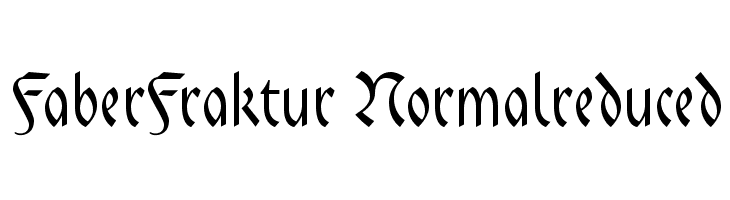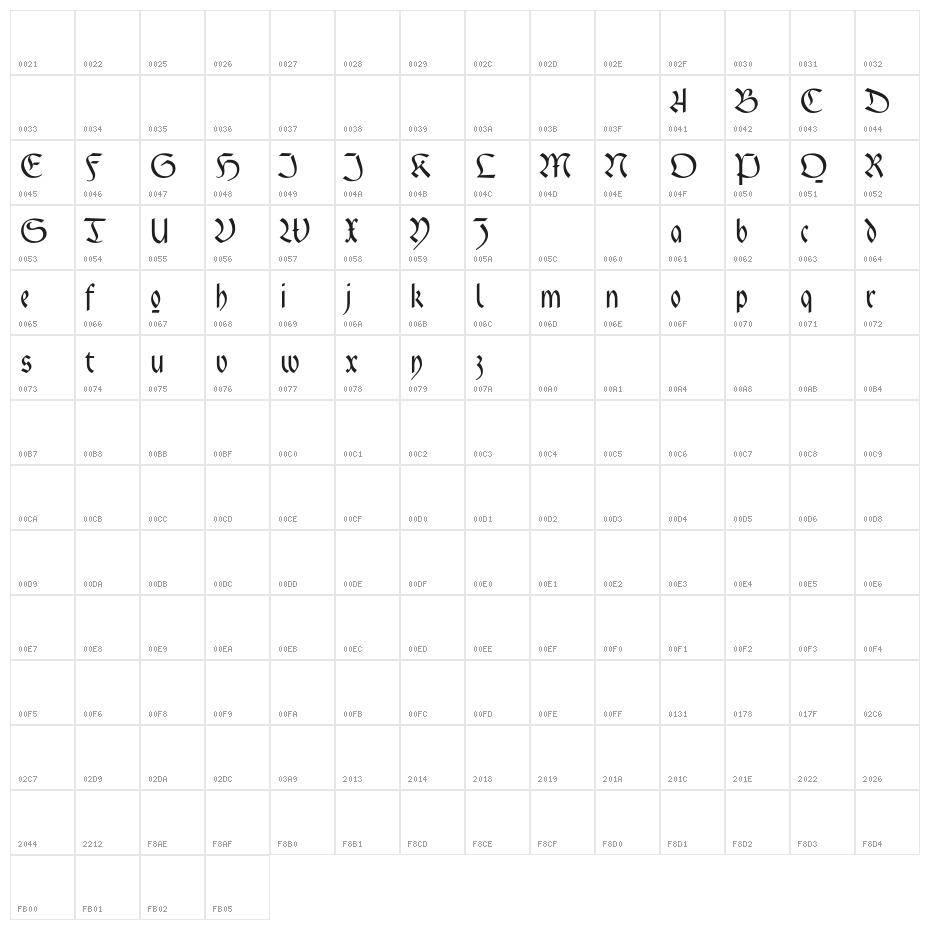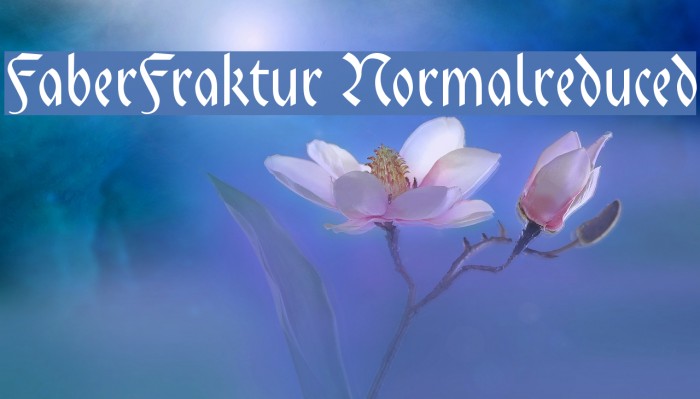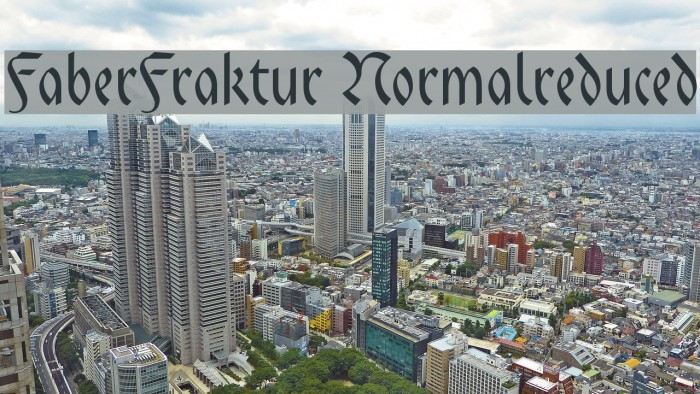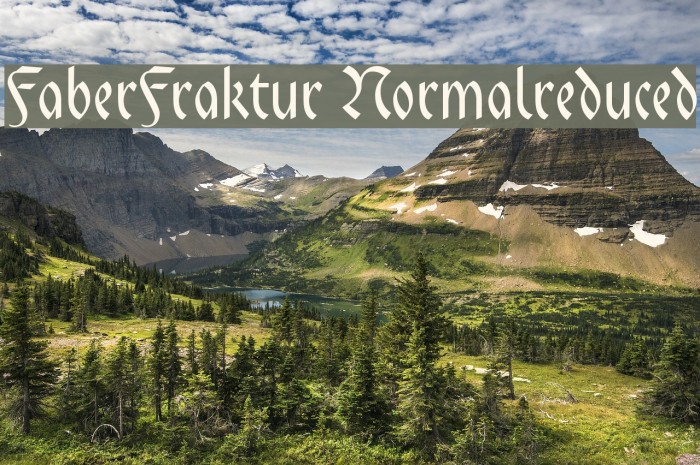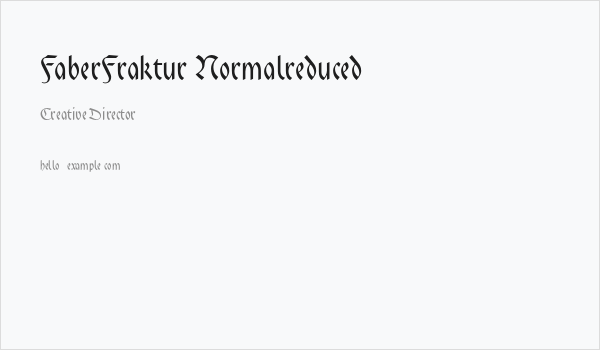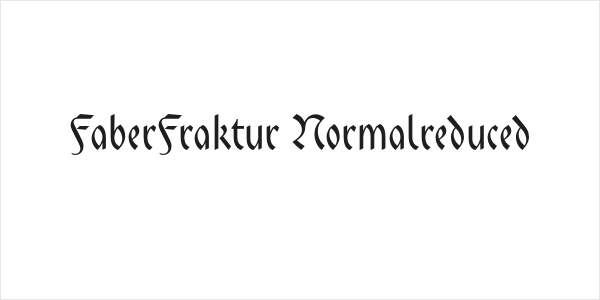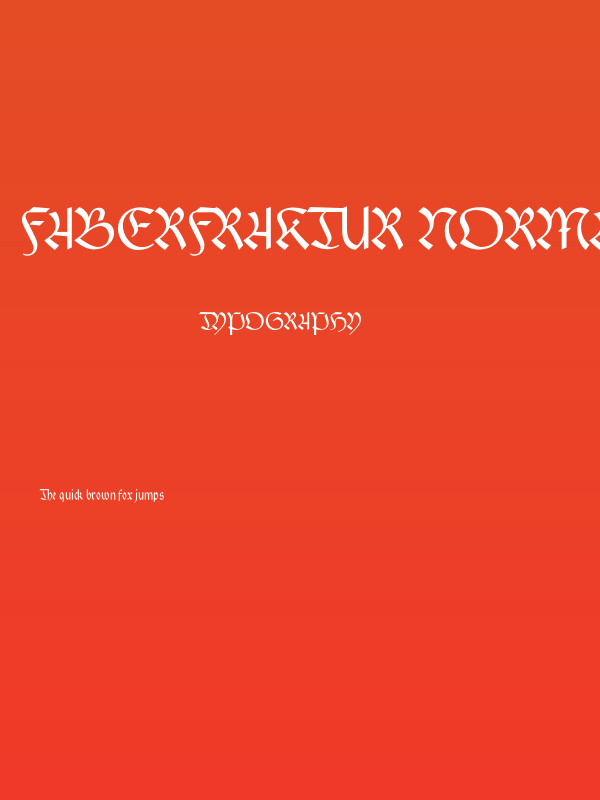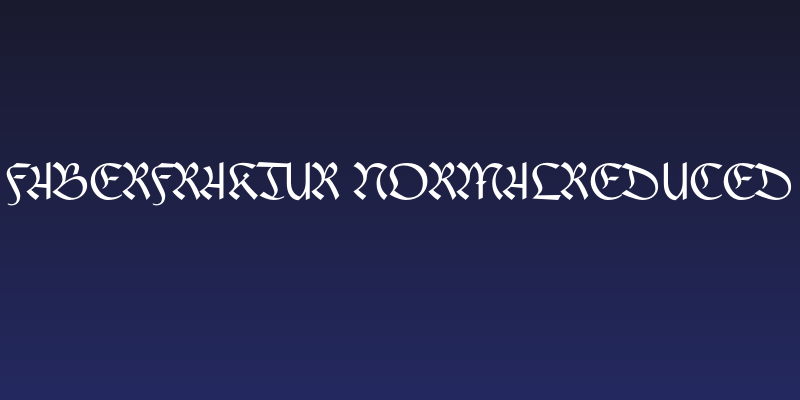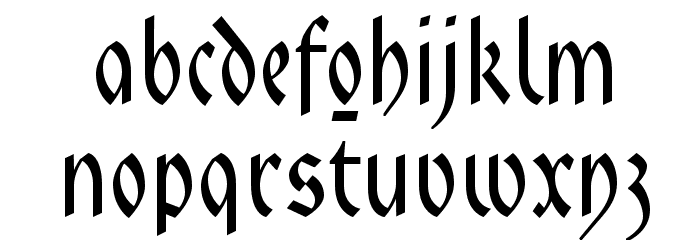
FaberFraktur-Normalreduced Font
FaberFraktur-Normalreduced Description
This font embodies the traditional elegance of blackletter typography, characterized by its intricate and ornate design. The letters feature sharp, angular strokes with a distinct medieval flair, reminiscent of Gothic script. The uppercase characters are particularly elaborate, with decorative flourishes that enhance their visual impact. The lowercase letters maintain a consistent style, offering a harmonious blend of readability and artistic expression. The numerals and special characters are crafted with the same attention to detail, ensuring a cohesive look across all text elements. This font is ideal for projects that require a historical or classical touch, such as invitations, certificates, or branding for luxury products.
| Use Case | Headlines, Logos, Decorative text |
| Proposed Projects | Ideal for historical documents, wedding invitations, luxury branding, and certificates. |